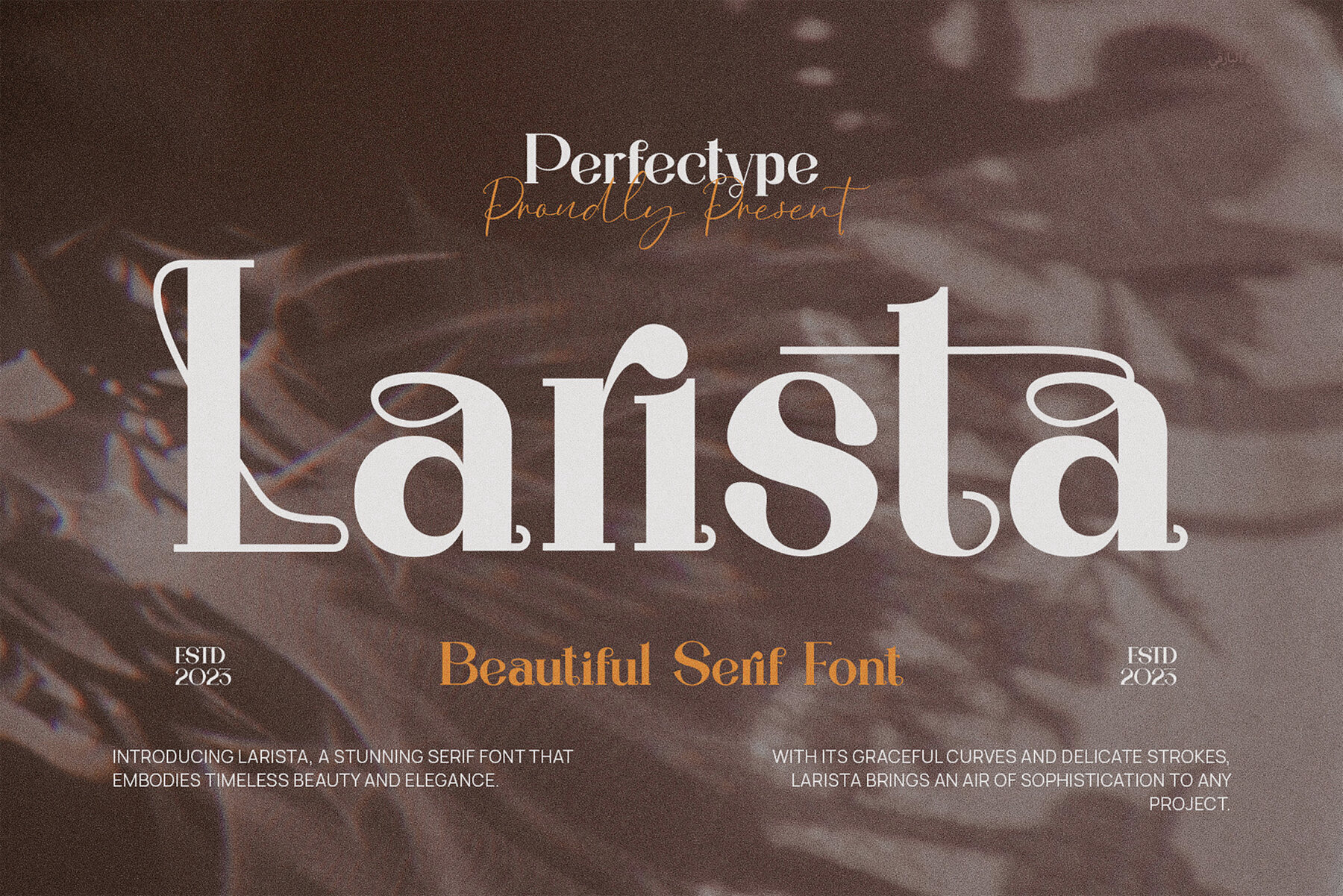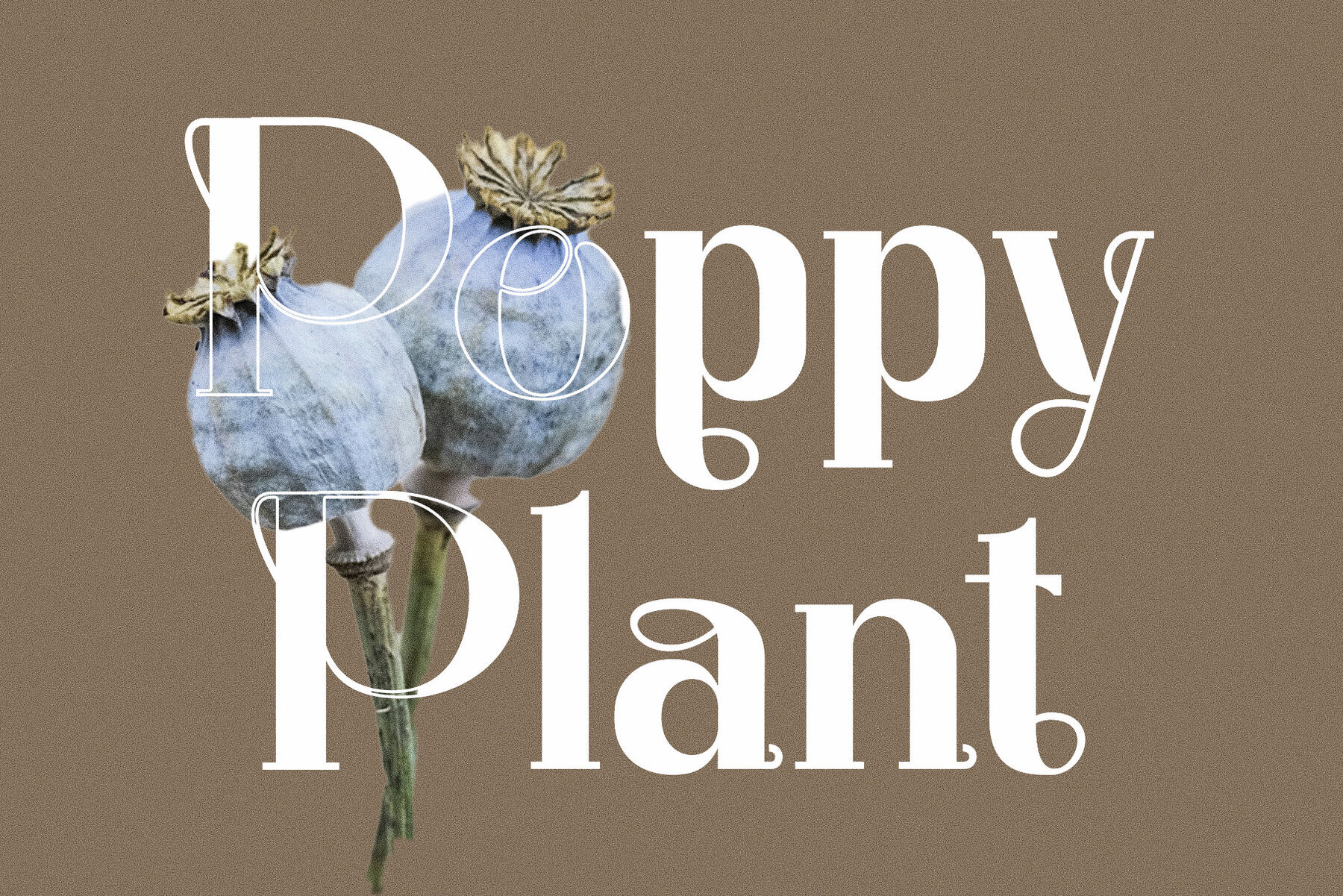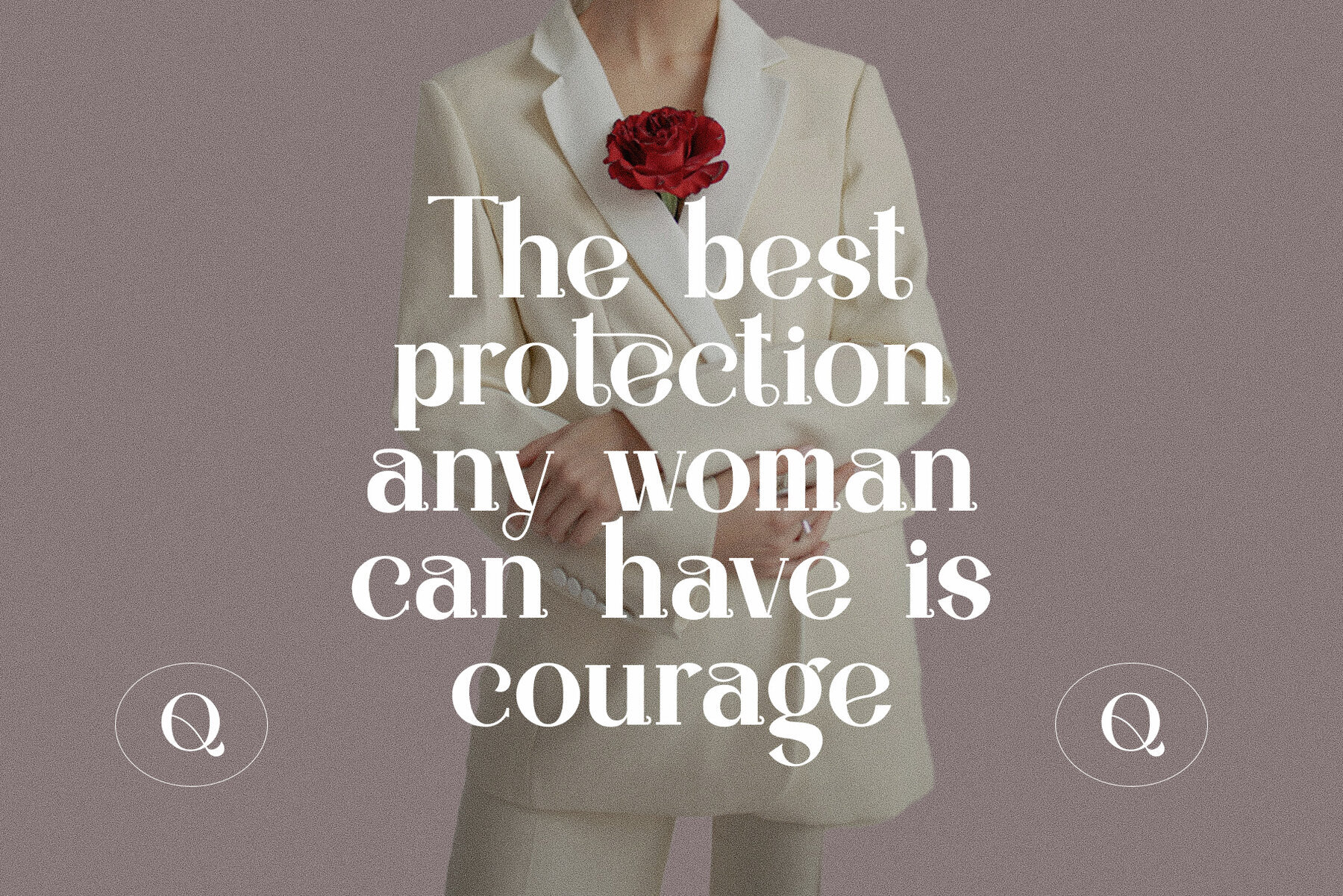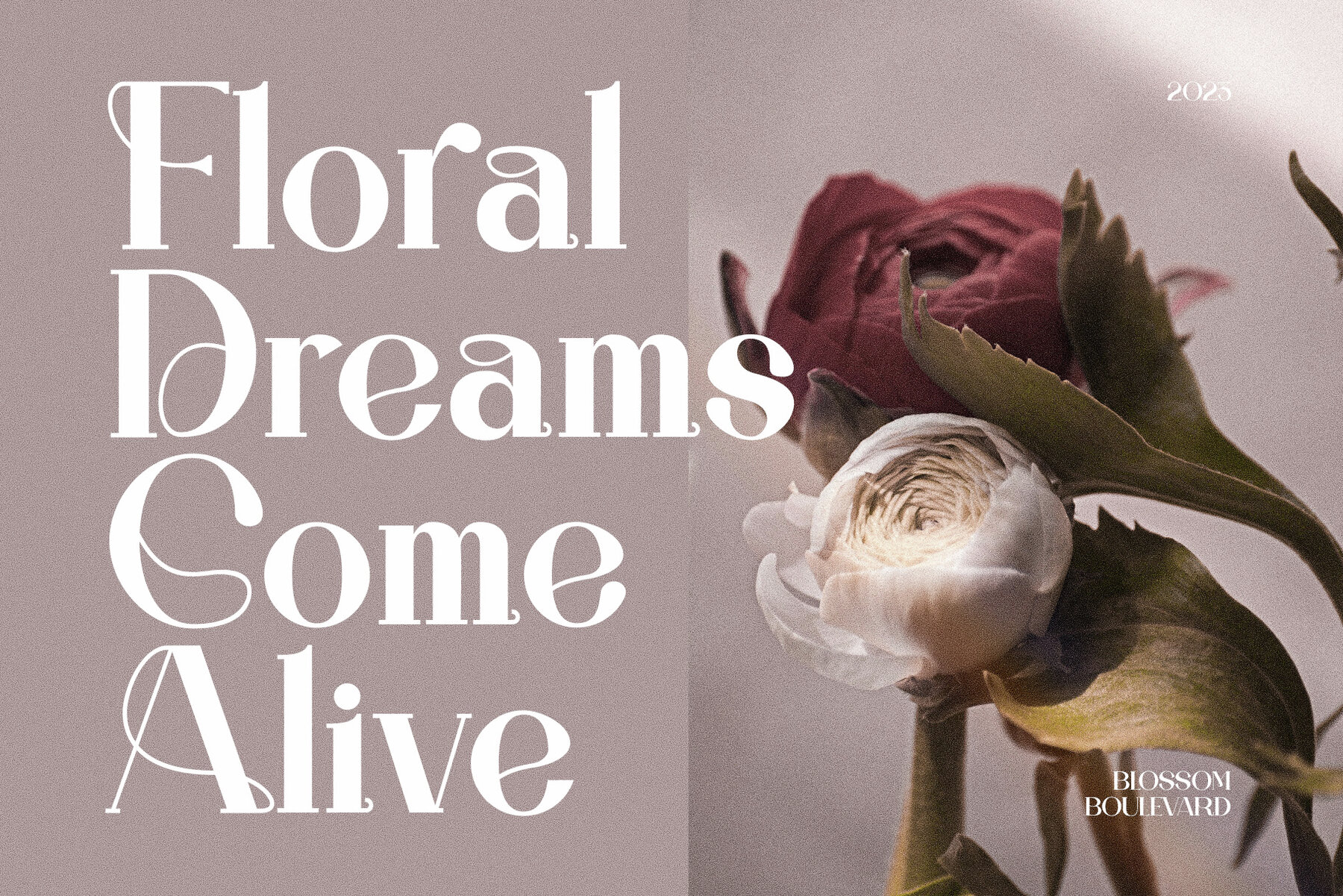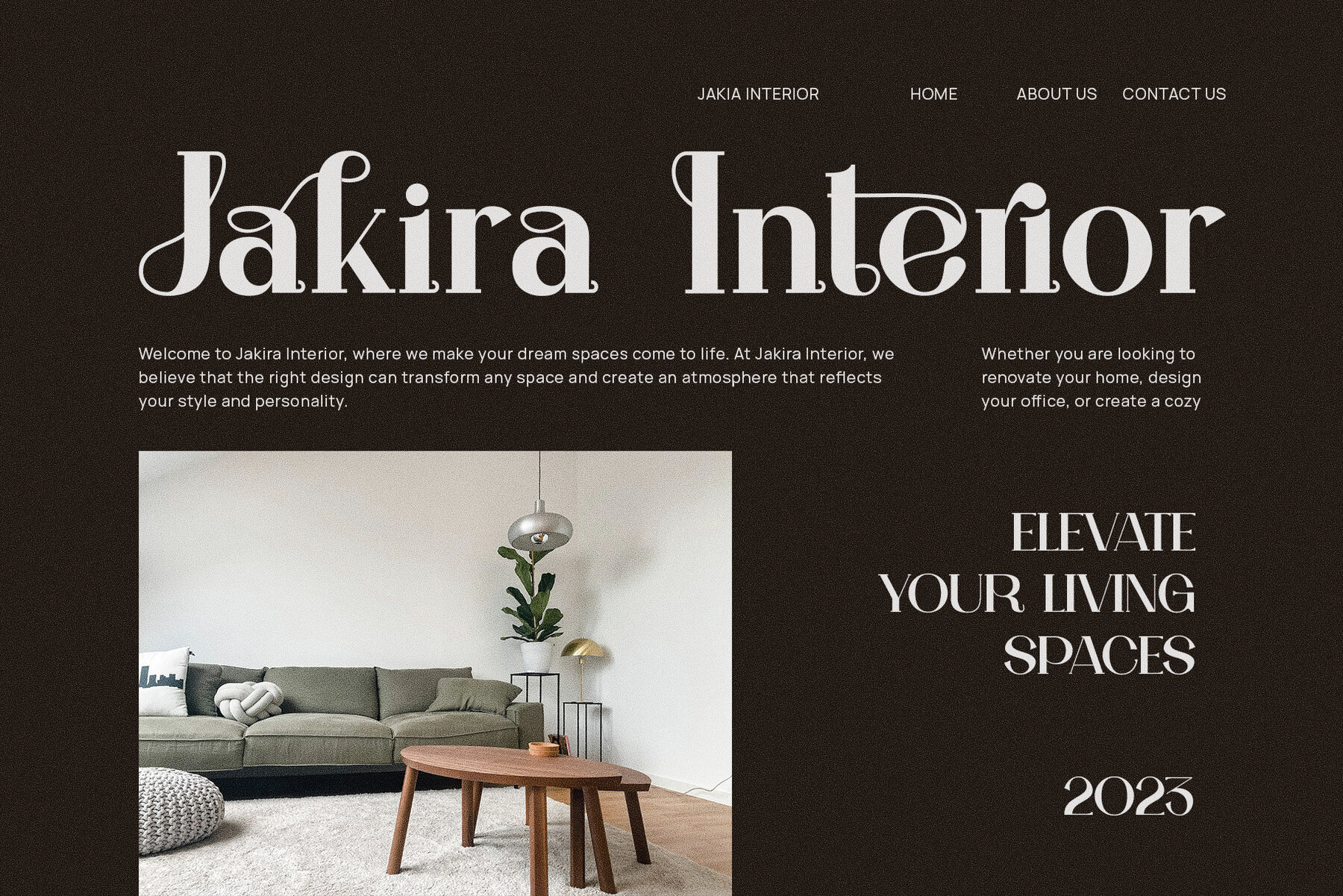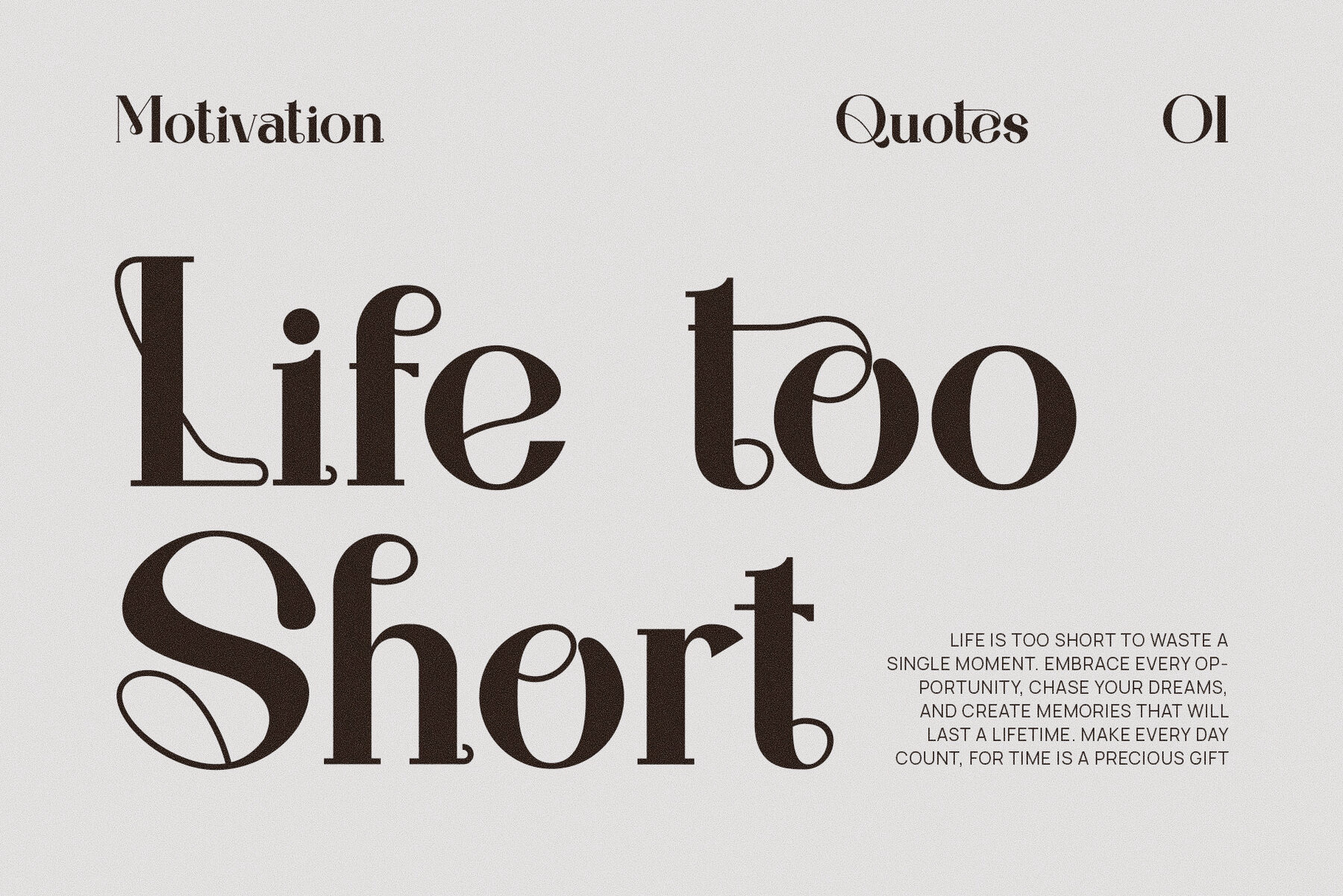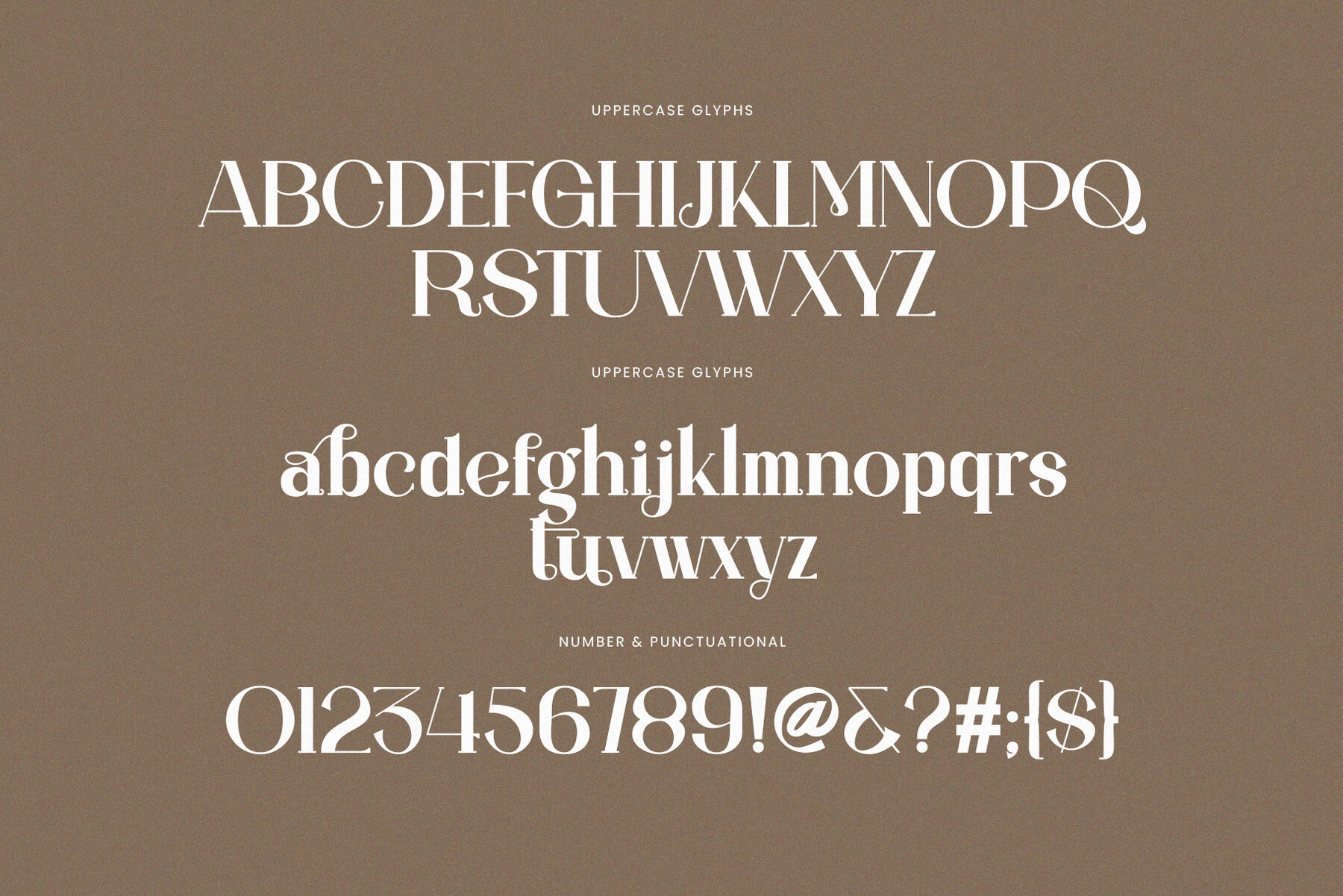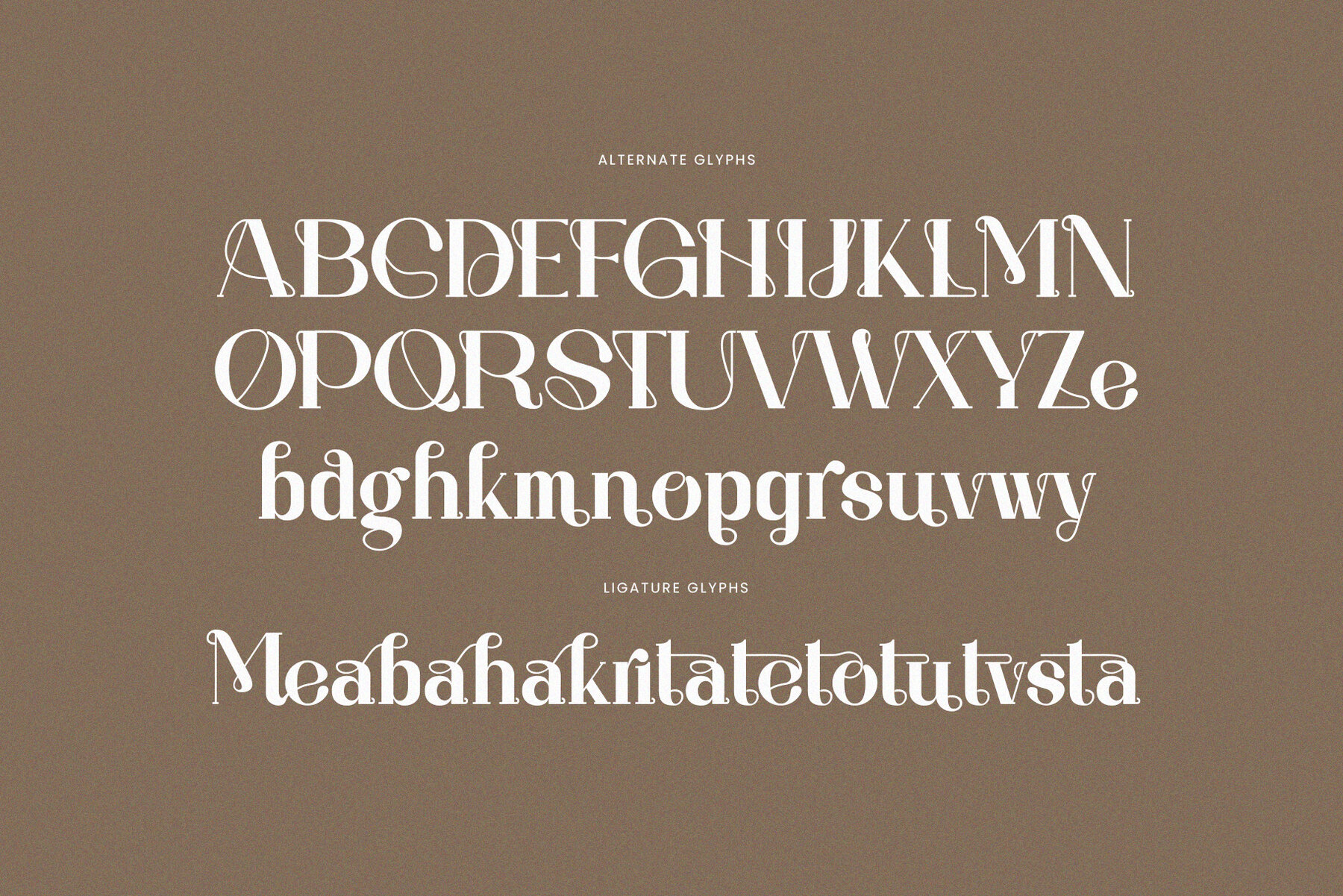
Larista Font
Larista Regular
Larista, crafted by Perfectype Studio, stands out as an elegant serif typeface that blends classical appeal with modern styling. This font excels in a variety of design applications, from branding and logos to social media and weddings, making it a versatile choice for designers seeking to add sophistication and clarity to their projects. The unique characteristics of Larista include its refined curves and sharp, clean finishes, which provide a professional yet contemporary look. Its versatility makes it ideally suited for upscale and formal contexts as well as more casual, creative settings. The adaptability of Larista allows it to perform wonderfully in a wide range of mediums: Larista is designed to be easily readable, which makes it a great choice for both digital and printed media. Its clear, highly legible style ensures that it remains functional in various text sizes and on different backgrounds.Larista by Perfectype Studio: An Elegant Serif for Diverse Branding Needs
Design and Style
Accessibility and Usage